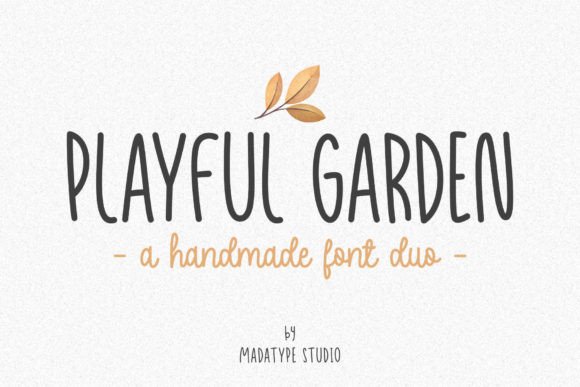
Introducing Playful Garden Font, the ultimate choice for a show flyer! Designed by the talented artists at Madatype Studio, this font family is the perfect blend of simplicity and fun. With its handwritten style, it adds a lively and attractive touch to any design project.
In this package, you'll not only receive Playful Garden Font but also the captivating Blue Lake Font. Together, they create a powerful duo that will elevate your creative endeavors to new heights.
What sets this font duo apart is its versatility. With a combination of script and handwritten fonts, you'll have access to a wide range of ligatures and alternates, giving you endless possibilities and flexibility in your designs.
Are you in need of a stunning logo that catches the eye? Look no further. Playful Garden Font will infuse your logo with a touch of whimsy and creativity, making it unforgettable.
Planning an event and want to promote it with style? Our font duo is the answer. Craft captivating posters, flyers, and banners that will leave a lasting impression on your audience. With Playful Garden Font, your event will stand out from the crowd.
But that's not all – social media graphics are a breeze with the Playful Garden Font duo. Whether you're designing Instagram posts, Facebook covers, or Twitter headers, this font will add a unique and playful charm to your content, ensuring maximum engagement.
In conclusion, Playful Garden Font is the best font for a show flyer, and so much more. Its captivating and energetic style will breathe life into your designs, making them truly exceptional. Download this font duo now and let your creativity flourish! Don't miss out on this opportunity to transform your design projects into stunning works of art.